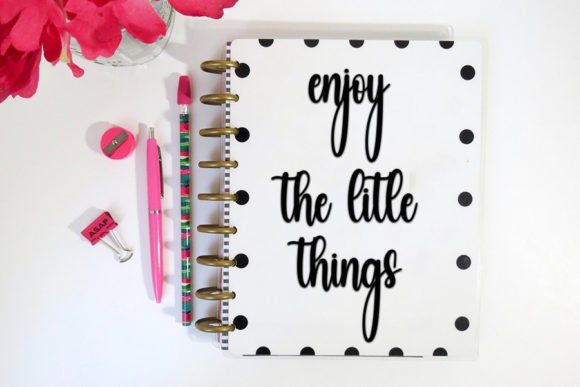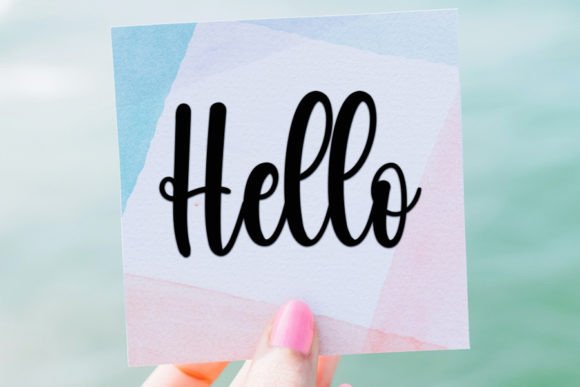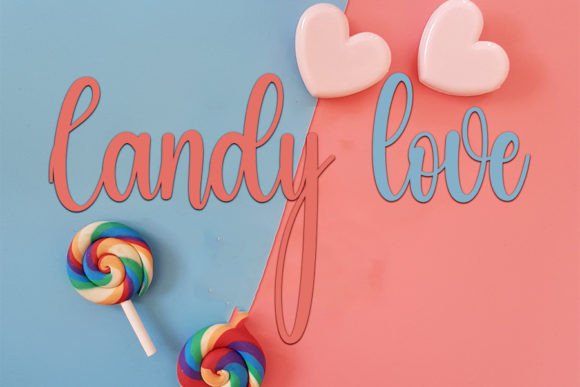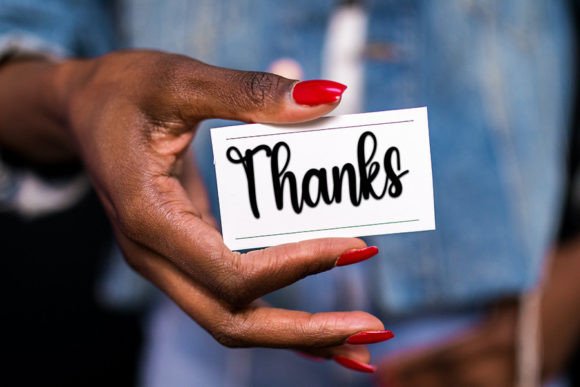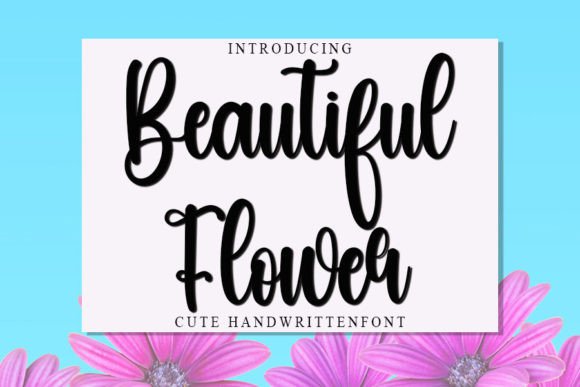
Introducing Beautiful Flower Font: Elevate Your Designs with Elegance
Are you on the hunt for a font that adds a touch of sophistication and charm to your projects? Look no further than the Beautiful Flower Font, a stunning handwritten font that is sure to capture your heart. With its elegant touch and timeless style, this font is perfect for designers and crafters looking to create spectacular designs that stand out from the crowd.
The Beauty of Beautiful Flower Font
Beautiful Flower Font is a neat and beautiful handwritten font that boasts an incredibly distinct and timeless style. Its elegant touch makes it perfect for a wide range of projects, from wedding invitations and branding materials to social media graphics and more. Whether you’re a professional designer or a crafty DIY enthusiast, this font is sure to inspire your creativity and help you create stunning designs that leave a lasting impression.
What Makes Beautiful Flower Font So Special?
So, what sets Beautiful Flower Font apart from other fonts on the market? Here are just a few of its standout features:
- Elegant and Refined: Beautiful Flower Font has a sophisticated and refined feel that makes it perfect for high-end designs and projects.
- Timeless Style: Unlike trendy fonts that quickly go out of style, Beautiful Flower Font has a timeless quality that ensures your designs will remain stylish for years to come.
- Versatile: This font is incredibly versatile and can be used for a wide range of projects, from digital designs to print materials.
- Easy to Read: Despite its elegant and refined feel, Beautiful Flower Font is still easy to read, making it perfect for body text and other applications where legibility is key.
How to Use Beautiful Flower Font in Your Designs
Now that you’re excited about Beautiful Flower Font, you’re probably wondering how to use it in your designs. Here are a few ideas to get you started:
- Wedding Invitations: Add a touch of romance and elegance to your wedding invitations with Beautiful Flower Font.
- Branding Materials: Use Beautiful Flower Font to create stunning branding materials, such as logos, business cards, and letterheads.
- Social Media Graphics: Elevate your social media graphics with Beautiful Flower Font and make your content stand out from the crowd.
- Digital Art: Use Beautiful Flower Font to add a touch of elegance and sophistication to your digital art.
Tips for Getting the Most Out of Beautiful Flower Font
To get the most out of Beautiful Flower Font, here are a few tips to keep in mind:
- Experiment with Different Sizes: Beautiful Flower Font looks great in a variety of sizes, so don’t be afraid to experiment and find the perfect size for your project.
- Pair it with Other Fonts: Beautiful Flower Font pairs well with a variety of other fonts, so try combining it with different fonts to create a unique look.
- Use it for Headings and Titles: Beautiful Flower Font is perfect for headings and titles, so use it to add a touch of elegance and sophistication to your designs.
In conclusion, Beautiful Flower Font is a stunning handwritten font that is sure to elevate your designs and add a touch of elegance and sophistication. With its timeless style and versatile nature, this font is perfect for a wide range of projects, from wedding invitations and branding materials to social media graphics and more. So why wait? Download Beautiful Flower Font today and start creating spectacular designs that leave a lasting impression!